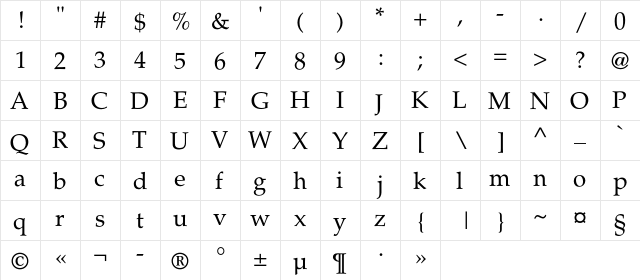
AGPalatialC Regular
Design Context for AGPalatialC Typeface
AGPalatialC offers clean, dependable letterforms without strong stylistic allegiance, making it a practical choice for designers who need flexibility.